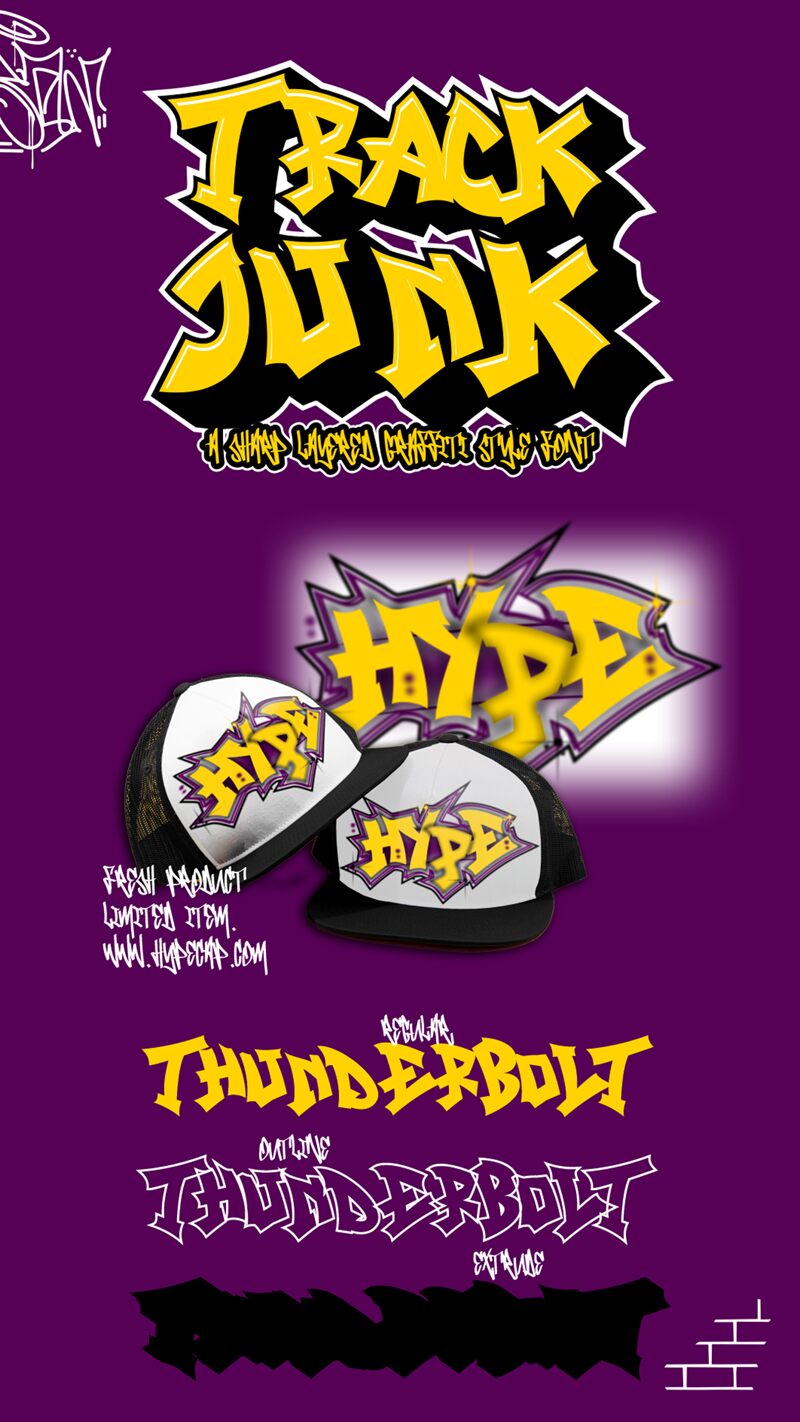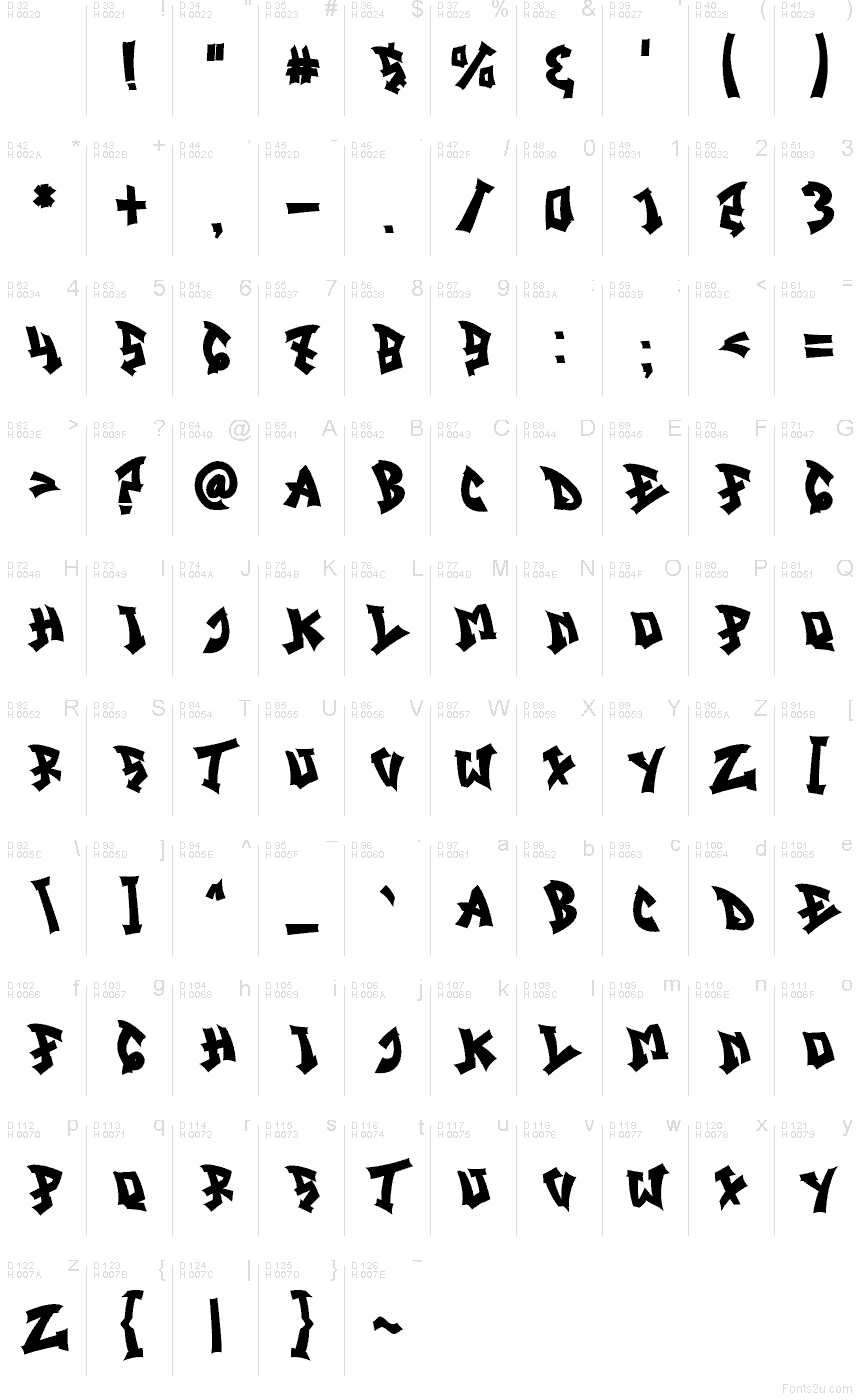
Track Junk Solid
Track Junk Solid font by Muhammad Panji Ramdhani of Sipanji x Figuree comes in loud and jagged, with chunky strokes that feel spray-cut and slightly warped, like fresh paint drying on concrete. Part of the Track Junk family, it has a restless rhythm—sharp angles, uneven heft, and a tough, streetwise swagger that still reads clean at a glance. Track Junk Solid is a free graffiti font, and the typeface carries that hand-tag energy without turning into a messy blur.
Using Track Junk Solid, you’ll get instant attitude on skate and streetwear logos, album covers, event flyers, sticker packs, YouTube thumbnails, and gritty poster headlines—anywhere you want that raw, inky punch. This free font also works beautifully for gaming titles and urban branding when you keep the copy short and give it room to breathe. Pair it with a plain grotesk sans for body text, and size Track Junk Solid up so the shapes can really flex.